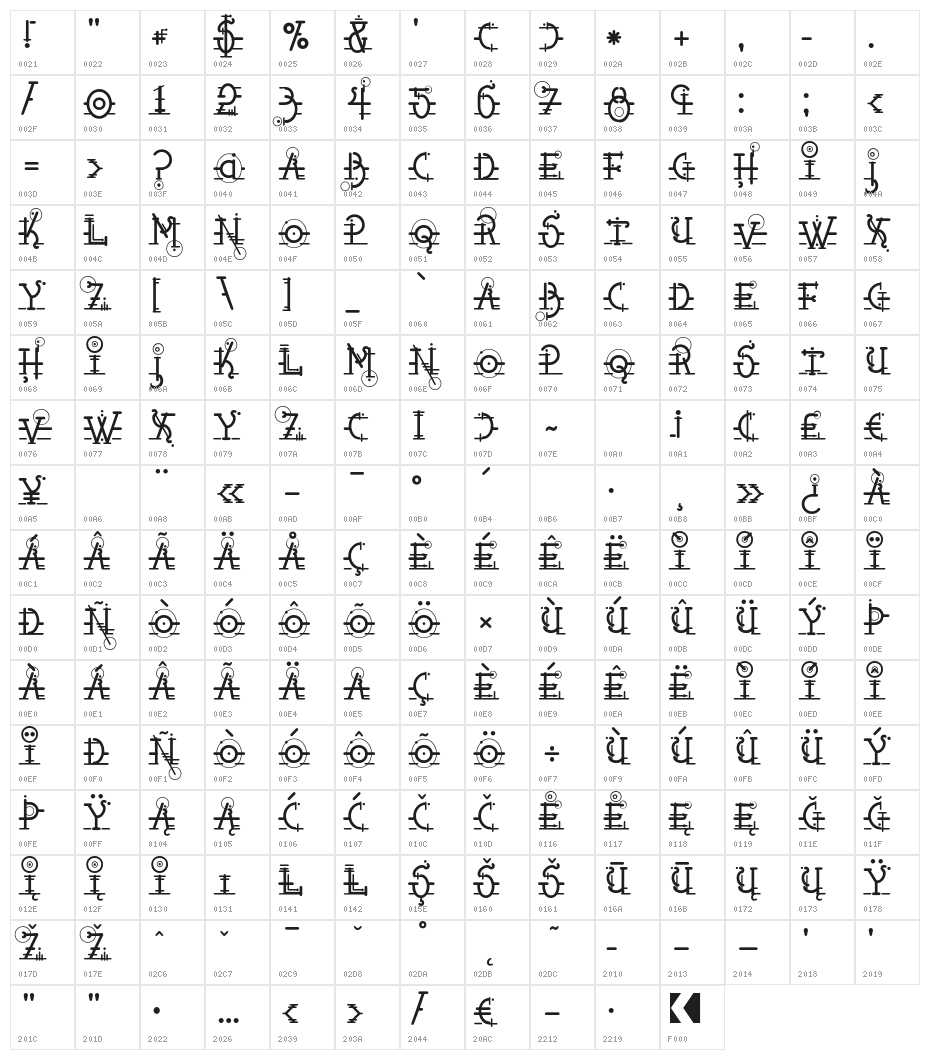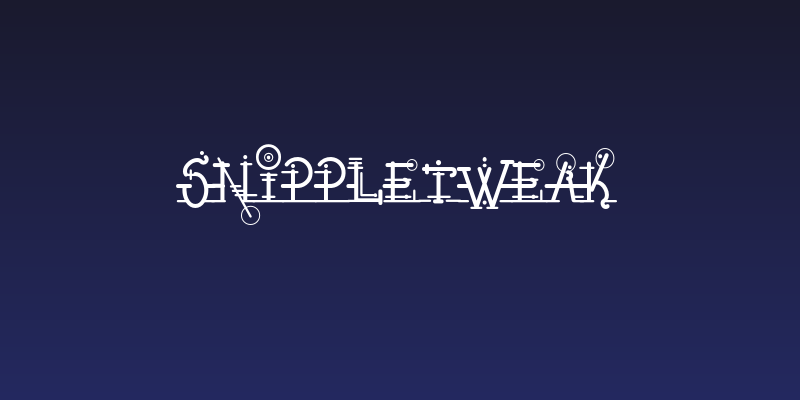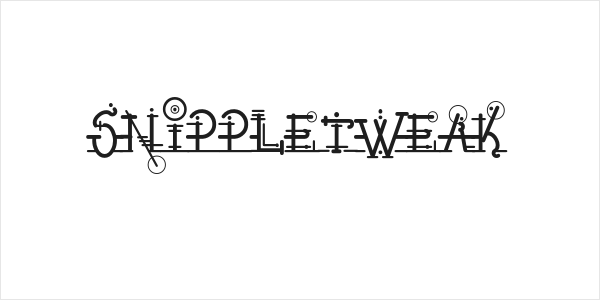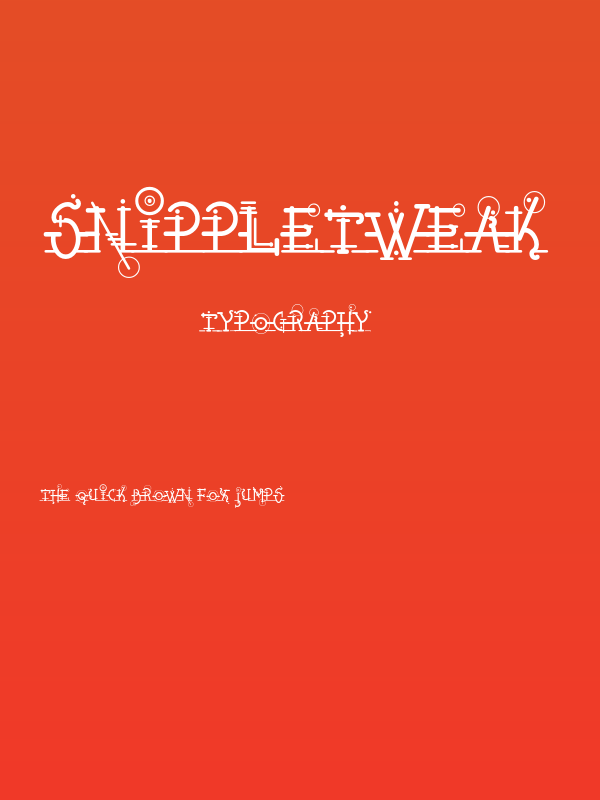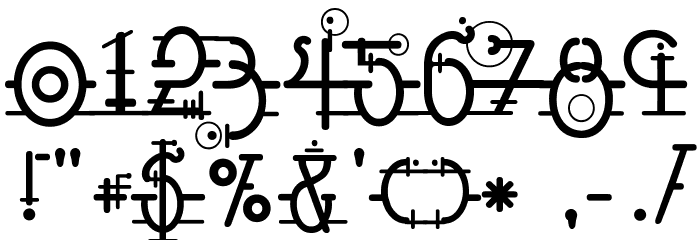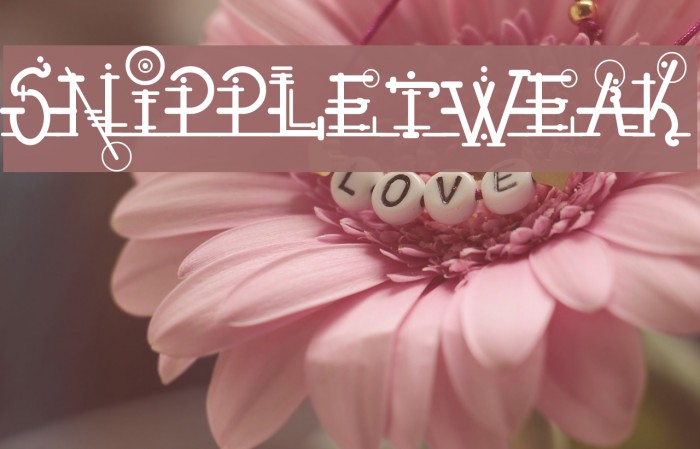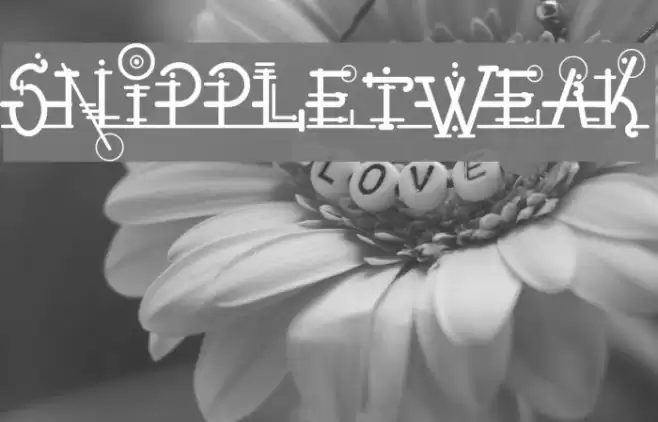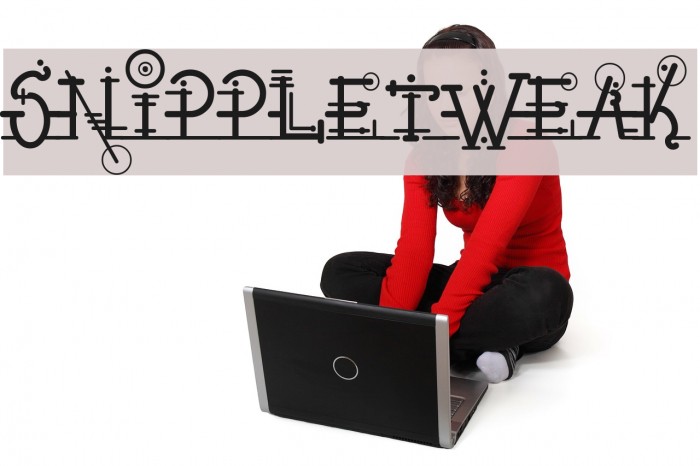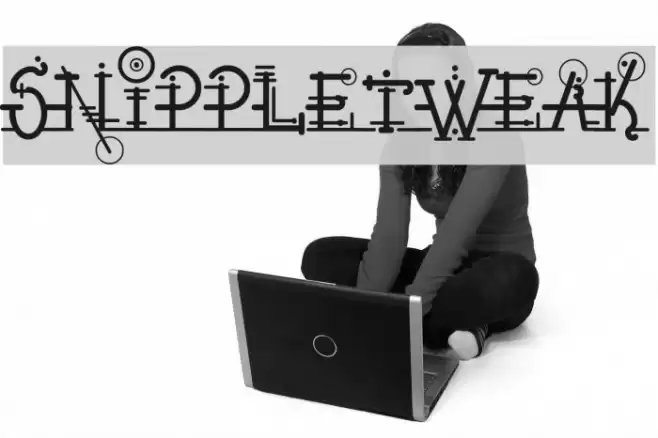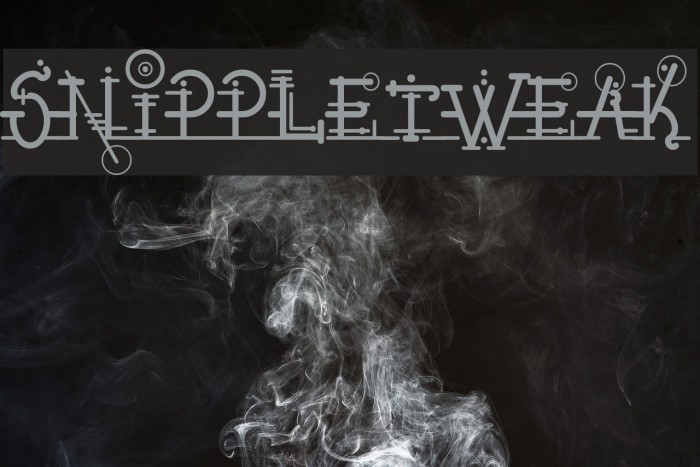
Snippletweak Font
| Stile generale | Futuristic, Avant-garde |
| Caso d'uso | Logos, Posters, Album covers |
| Progetti proposti | Ideal for use in artistic projects, sci-fi themed designs, posters, album covers, and branding that seeks a unique and modern edge. |